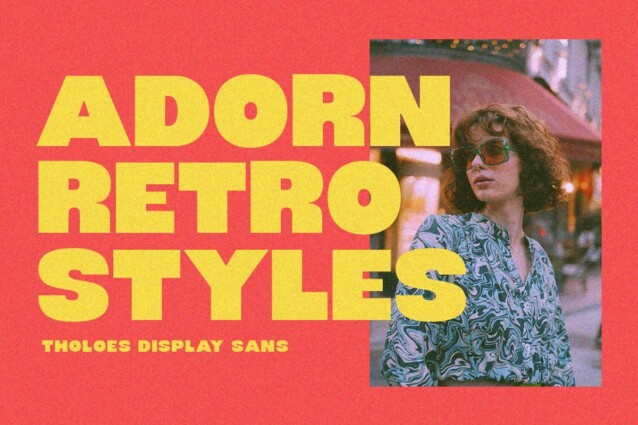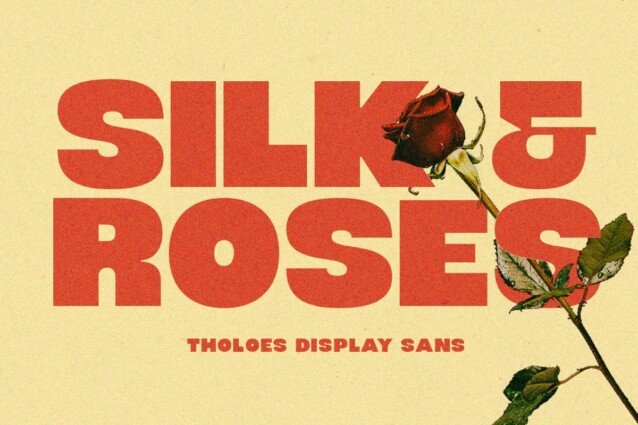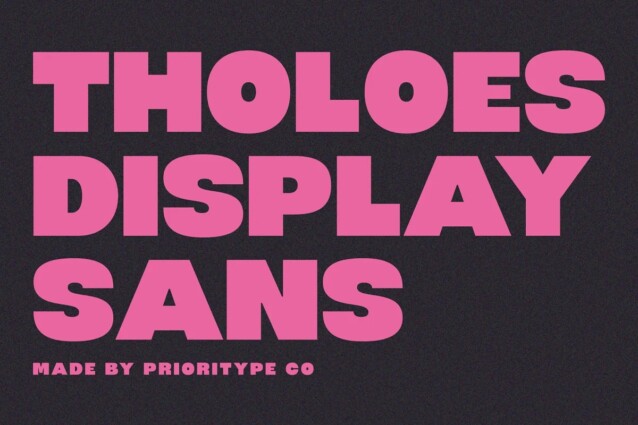
Tholoes Font
Tholoes Font is a sans-serif typeface crafted & designed by Prioritype Co. Crafted with care, maximizing neatness in shape. Ideal for posters, branding, logos, and social media, its strong presence commands attention and leaves a lasting impact. Make your mark with “Tholoes” and let your creativity speak volumes.